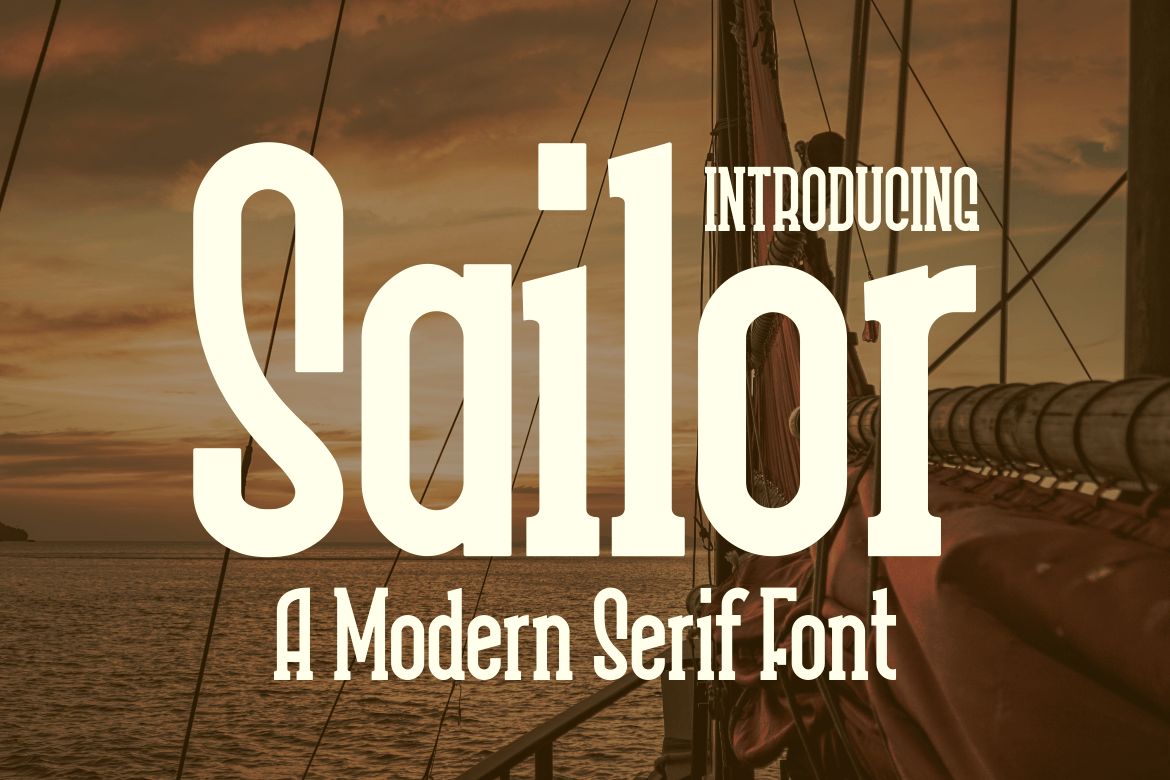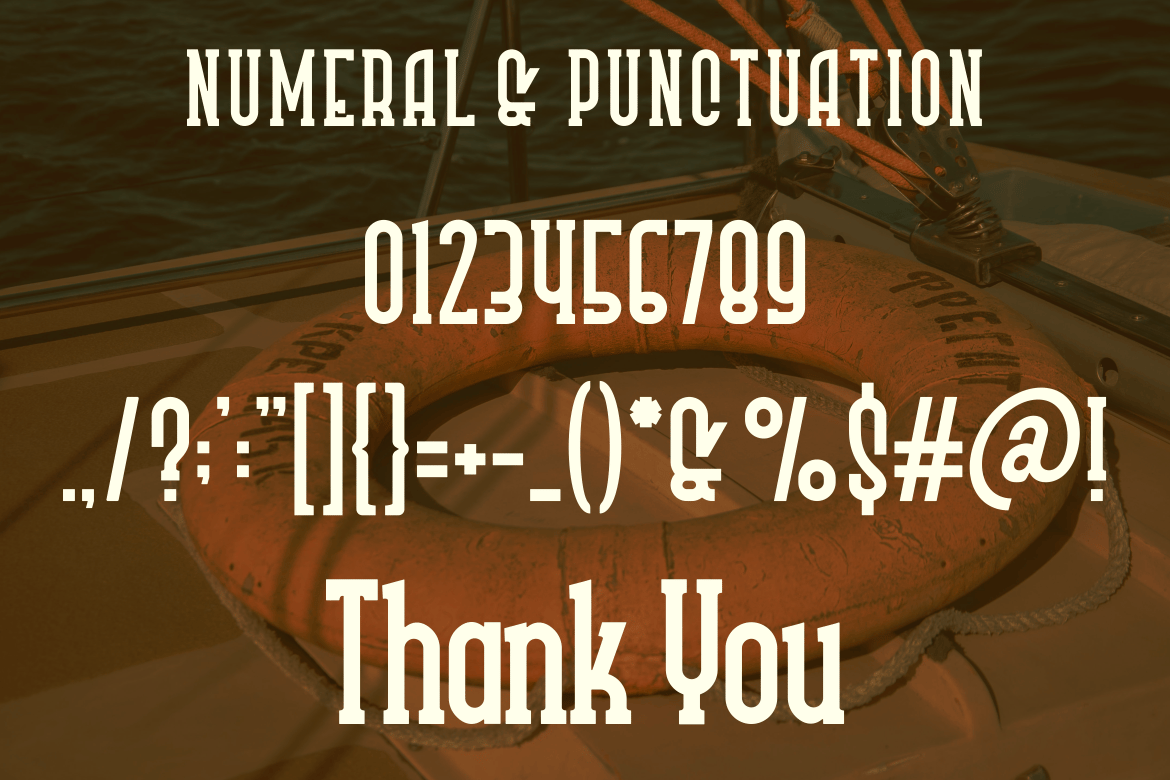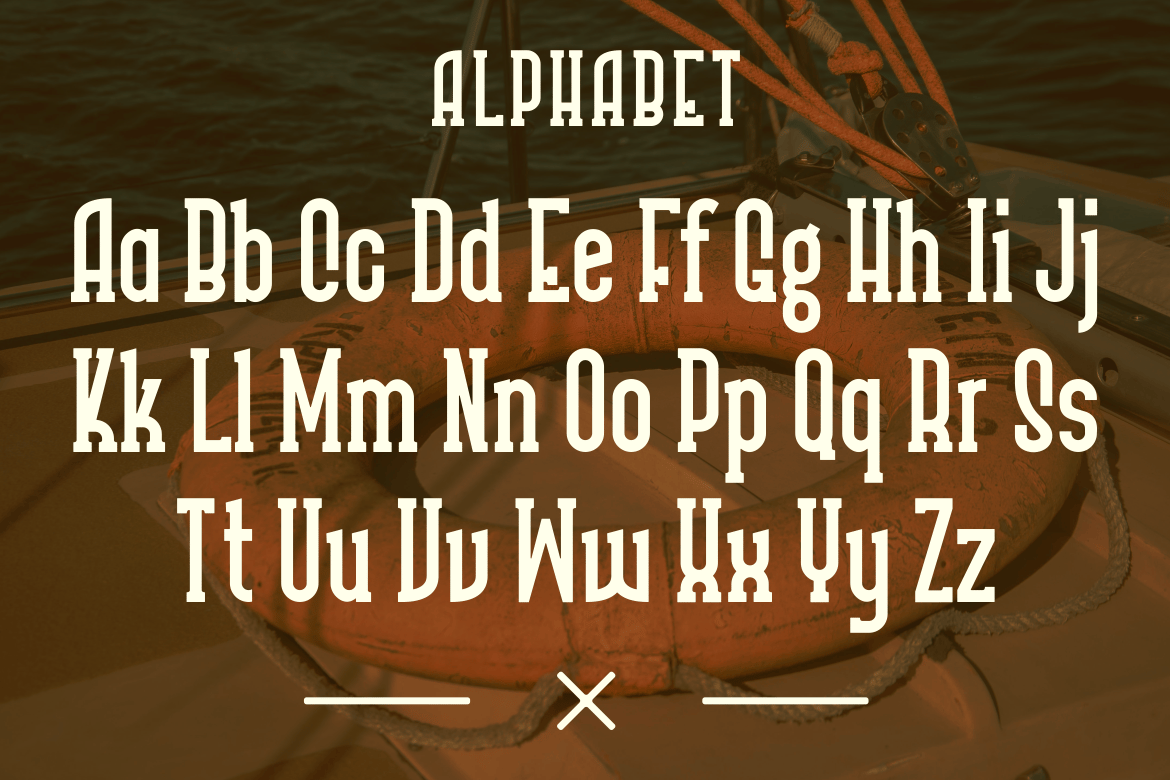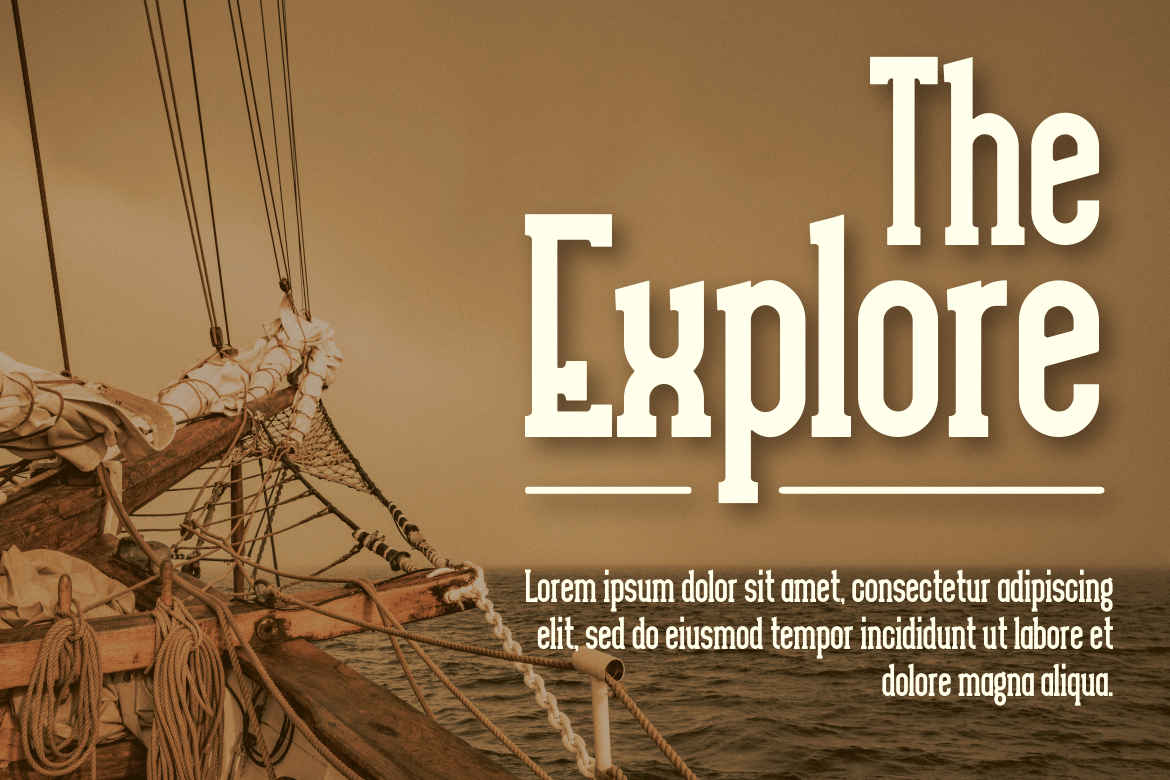
Sailor – A Modern Serif Font
Introducing our new product Sailor Font – Modern Font
Sailor Font** – Modern Font is a bold and authentic display font. The font is suitable for any branding project like logo, t-shirt printing, Product and many more. outstanding in a wide range of contexts.